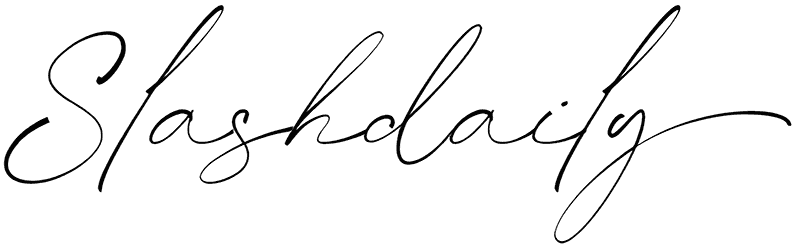
Slashdaily Font
When you adorn your words with an elegant and ravishing calligraphy font, such as the present offer, the final showcase is going to hook a lot of viewers. Smooth letters of this signature font will throw a charming vibe into your layouts, namely a business card for an artist. Don’t miss this chance and benefit from the Slashdaily font to create mesmerizing layouts.